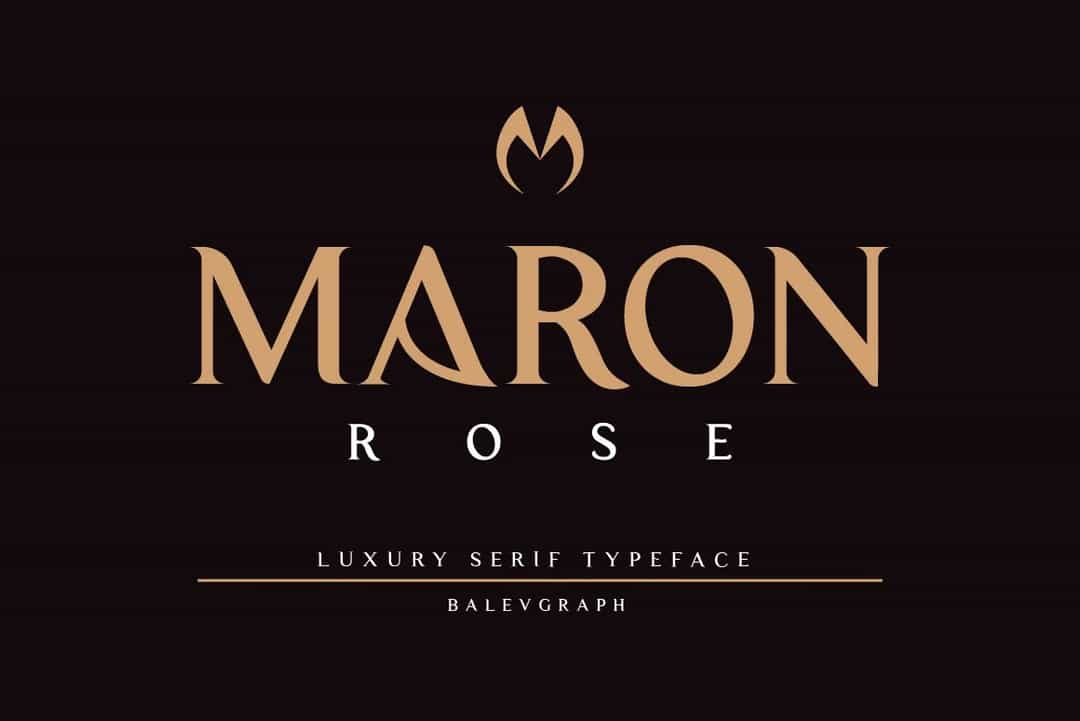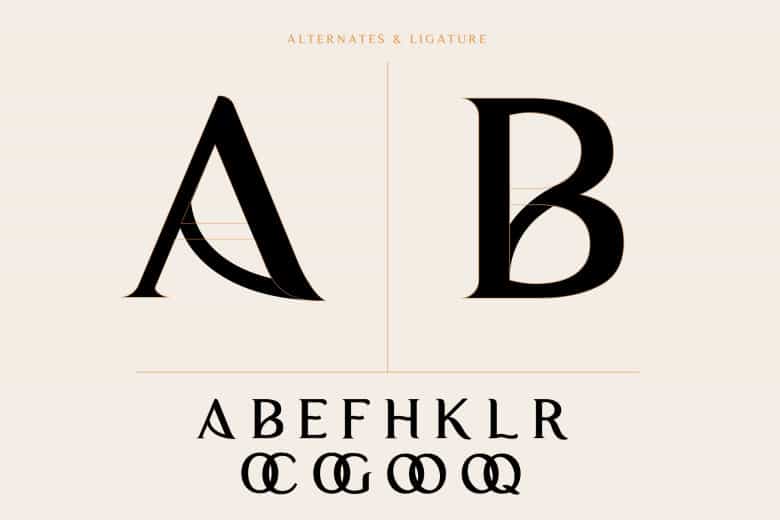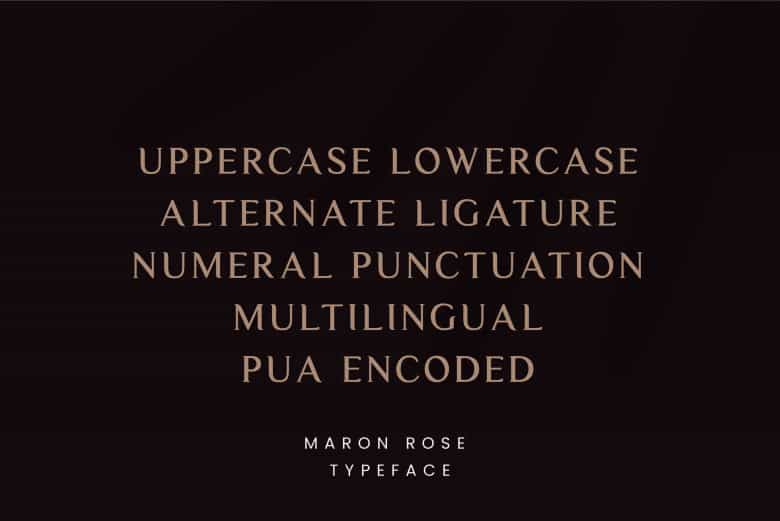
Maron Rose is an elegant and chic serif font. Perfect for creating cards, branding labels, logos, labels and much more, Maron rose is perfect for use across a variety of projects such as logo design.